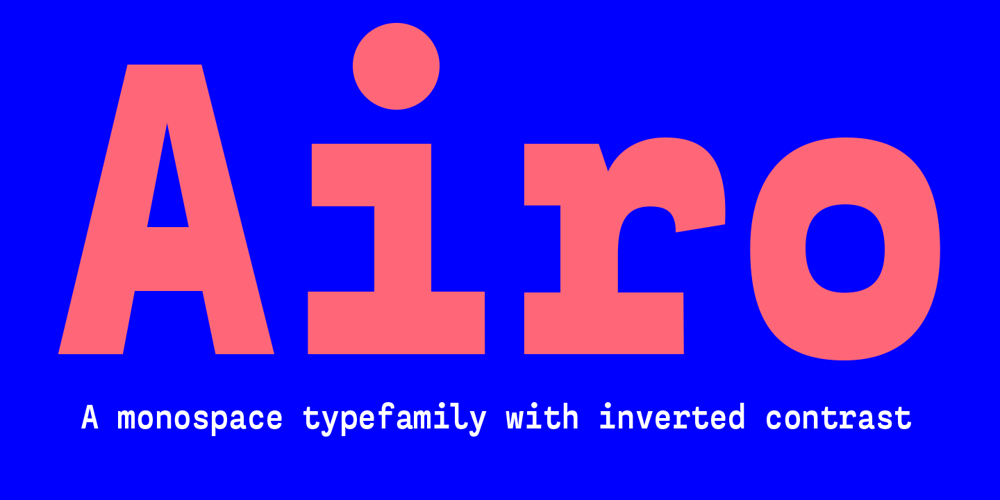
Airo
Airo font
Airo Font Family was designed by published by LetterMaker. Airo contains 6 styles and family package options. Airo is a monospace type family with inverted contrast. The distinct shapes and detailing give Airo a strong typographic voice. The family comes in six carefully selected weights, from Light to Extra Bold, making it a versatile typographic tool. The family works best as a display typeface for creating a strong visual impact, but you can use the lighter weights for medium length text as well.